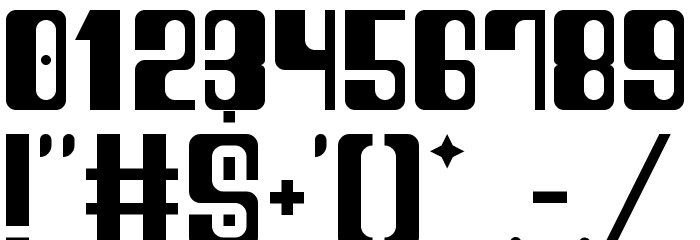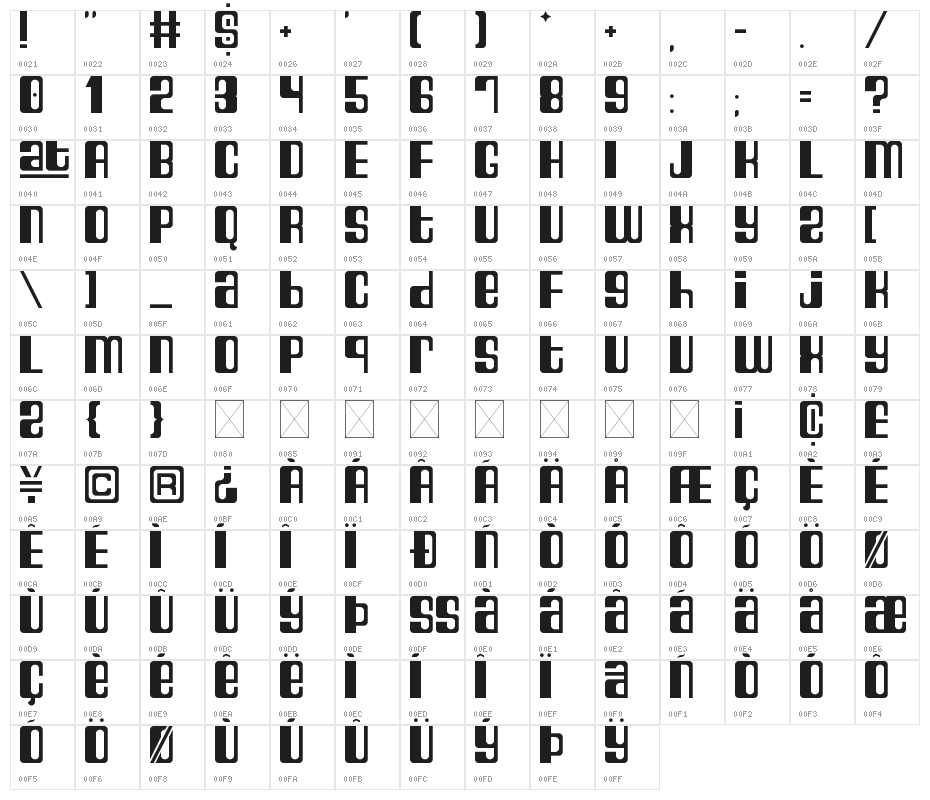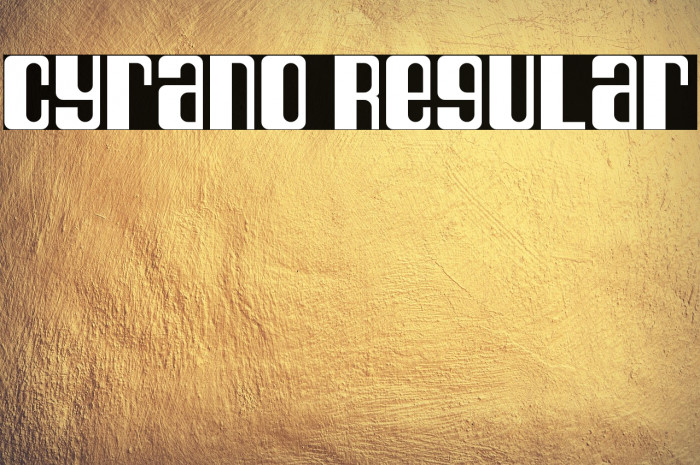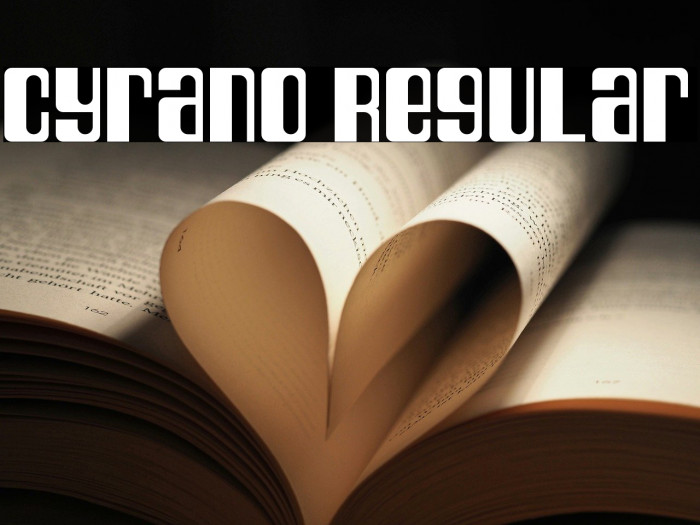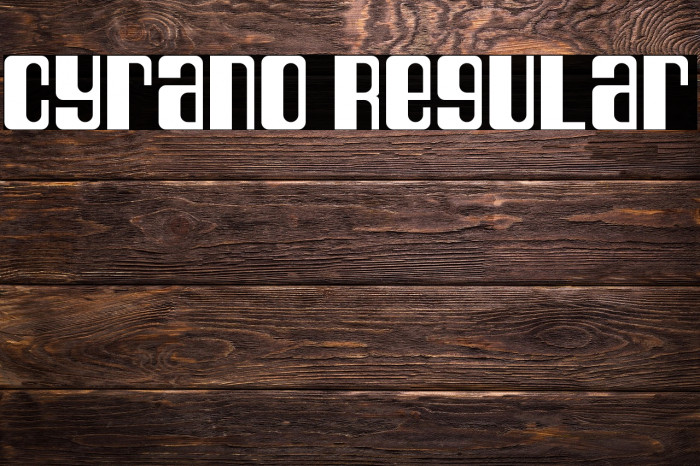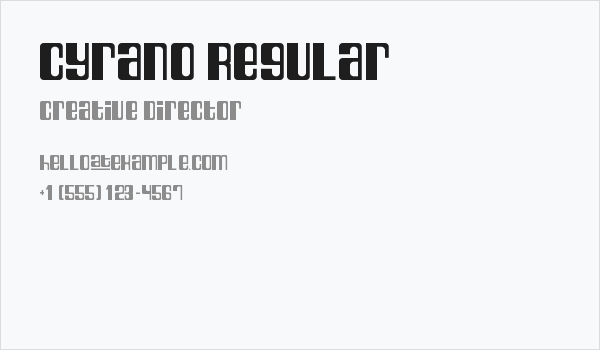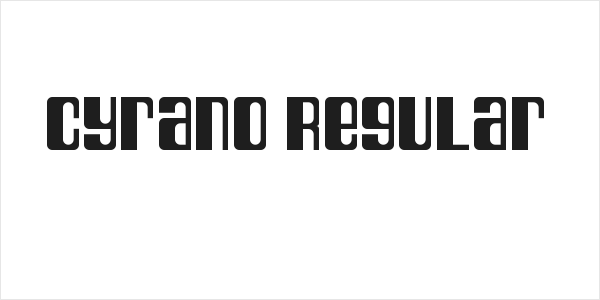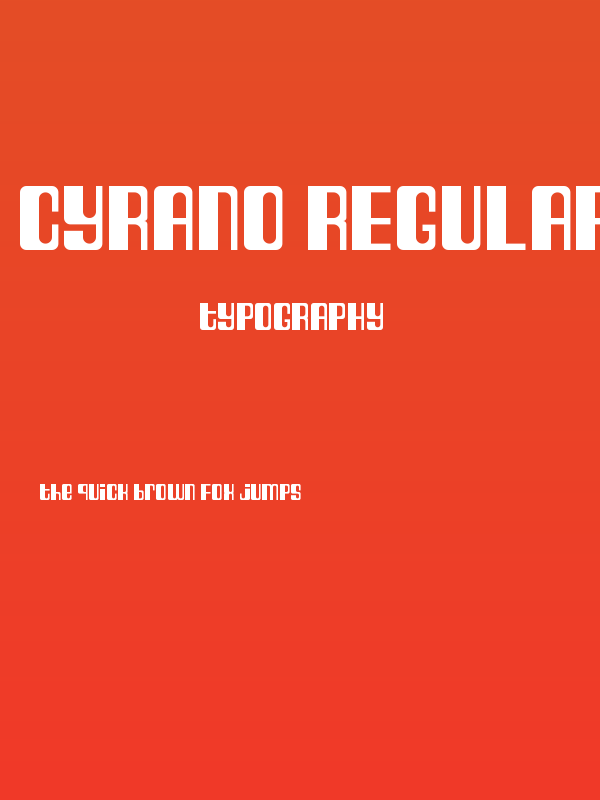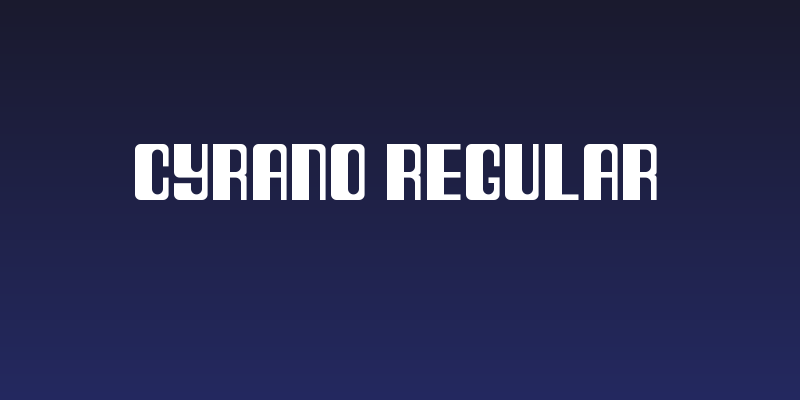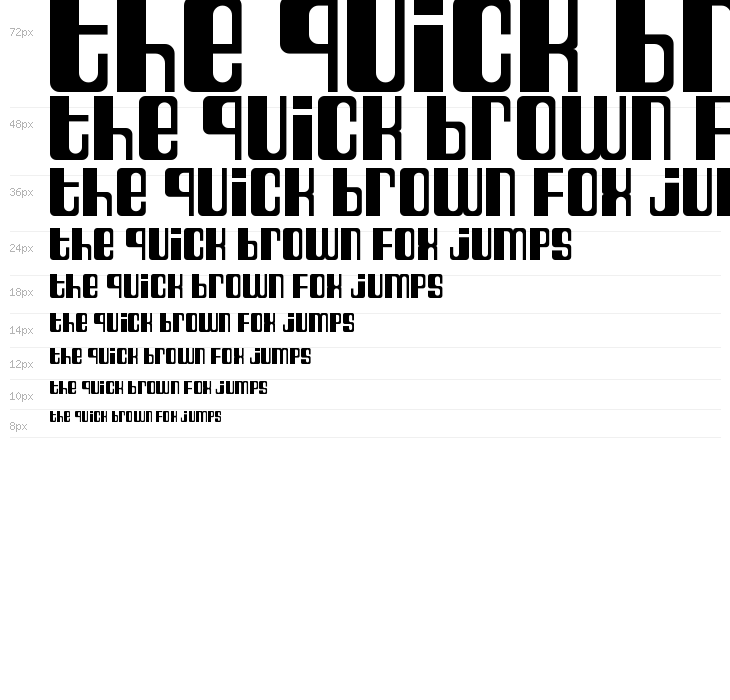
Cyrano Regular Font
This font exhibits a bold and striking design with a modern flair. The characters are constructed with a geometric precision, featuring thick, uniform strokes that create a strong visual impact. The uppercase and lowercase letters maintain a consistent height, contributing to a cohesive appearance. The numerals and special characters are designed with the same boldness, ensuring readability and emphasis. The overall style is both contemporary and slightly retro, making it versatile for various design applications.
| Proposed Projects | Ideal for branding, posters, headlines, and any project requiring a strong visual presence. |